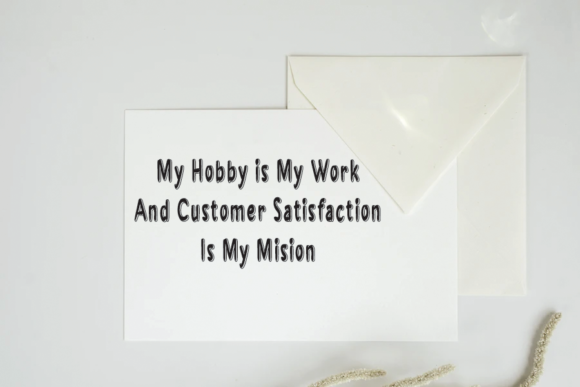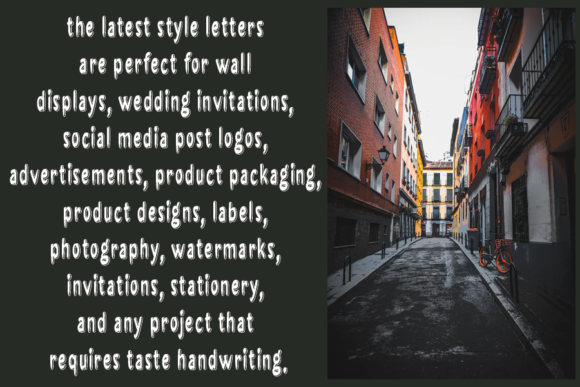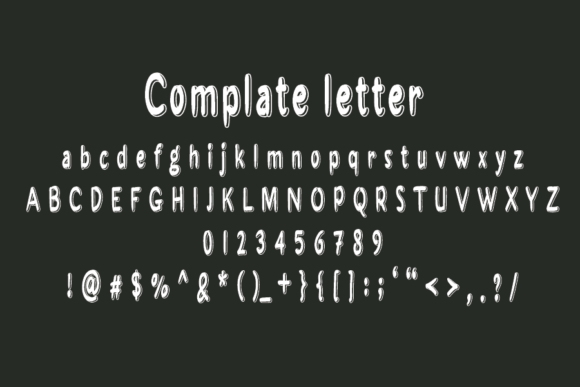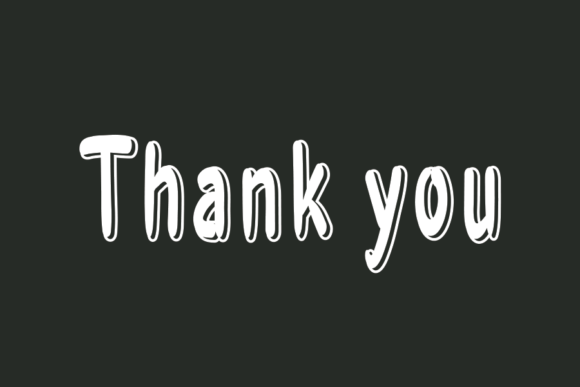
Introduction to Roomble Font
Roomble is a sweet and friendly handwritten font.
Key Features of Roomble Font
Why Choose Roomble Font?
Roomble Font offers exceptional quality and versatility, making it a valuable addition to your design toolkit. Whether you’re creating for personal projects or commercial use, Roomble Font delivers professional results.